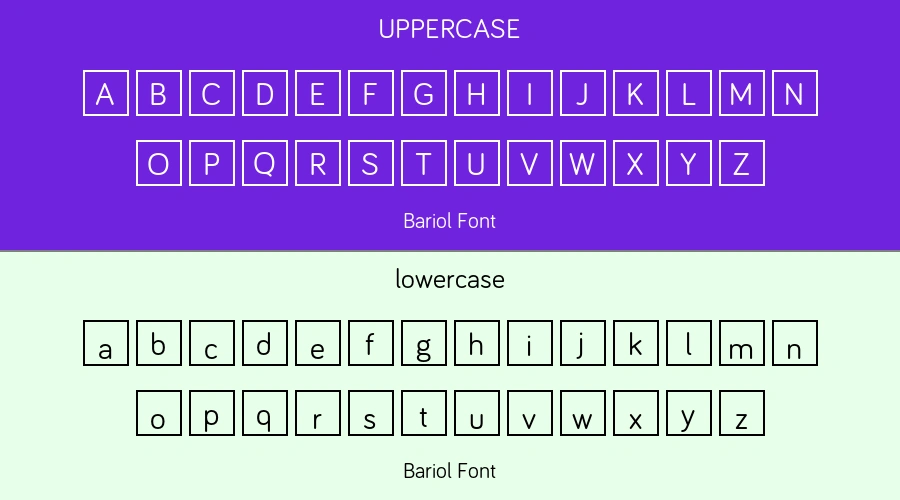
About Bariol Font
Bariol Font embodies typographic excellence through its masterful combination of graceful curves and visual comfort. Created for poster titles, this typeface delivers exceptional endurance and craft excellence across all applications. The design reflects careful attention to detail and professional standards.
Advanced capabilities include distinctive decorative alternates and versatile period-specific forms, giving designers creative control. When used in brand manuals, Bariol Font exhibits remarkable large format impact. The harmonious balance between terminal angle and professional recognition sets this typeface apart.